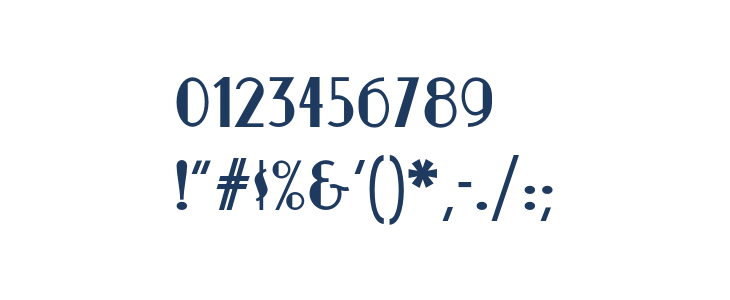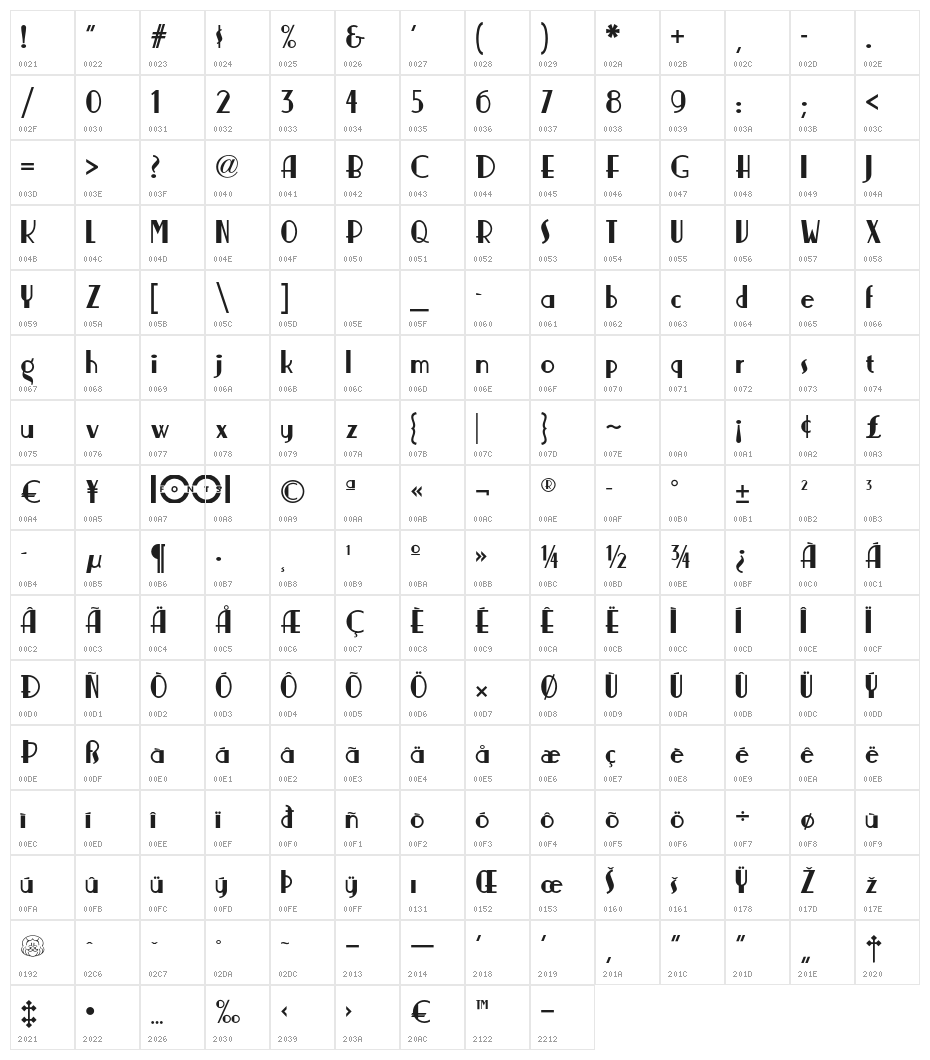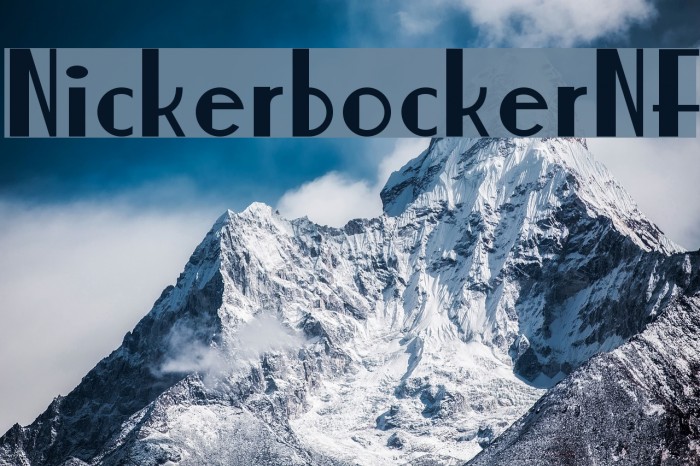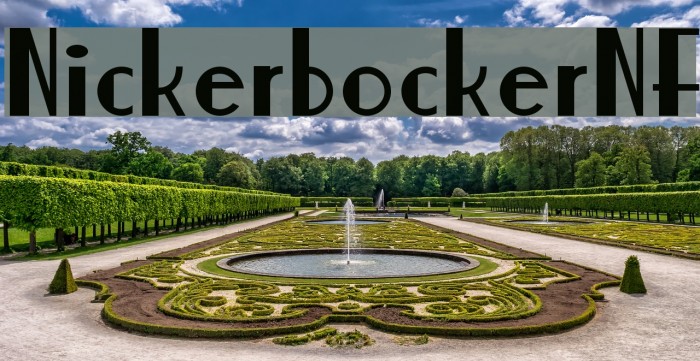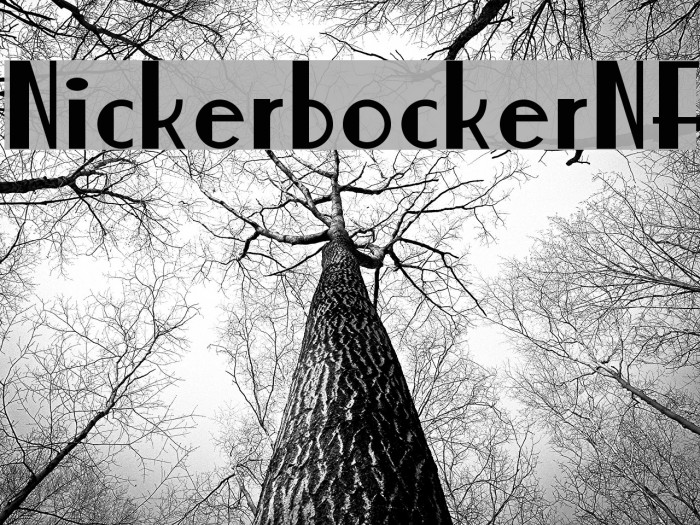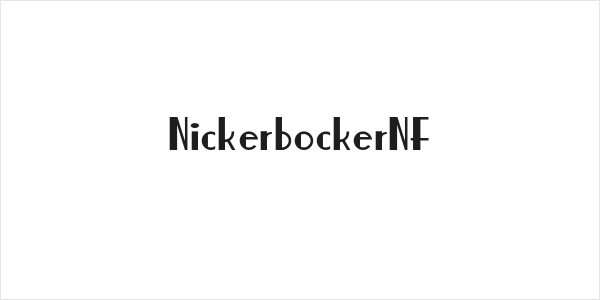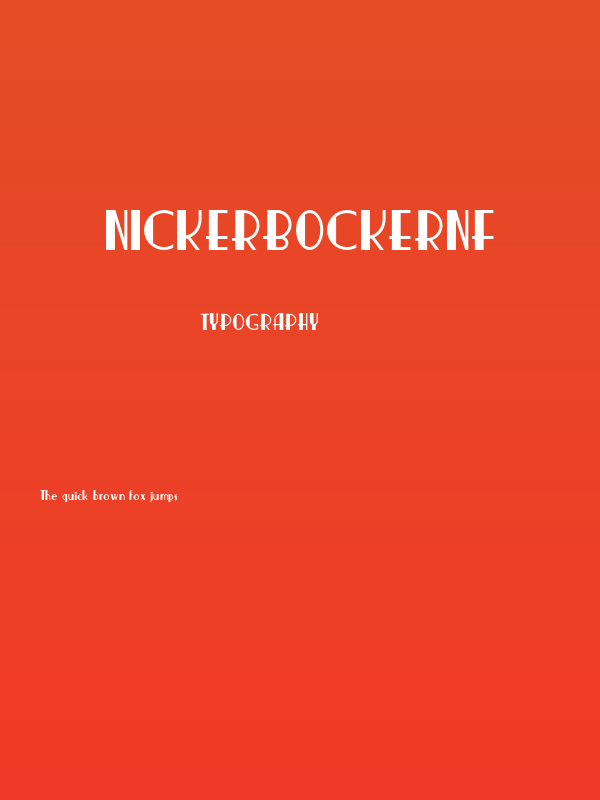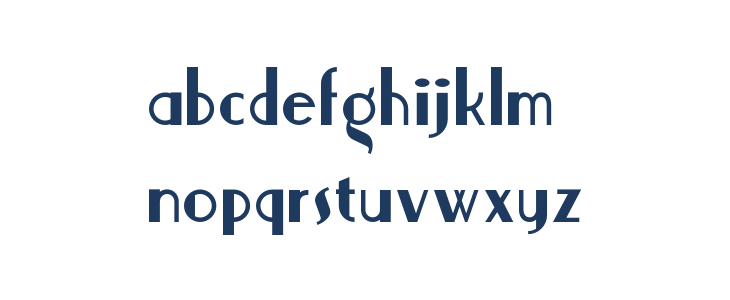
NickerbockerNF Font
NickerbockerNF Description
This font features a unique blend of Art Deco and modern design elements, characterized by its bold and geometric letterforms. The uppercase letters exhibit a strong vertical emphasis with distinct angular cuts and curves, creating a dynamic and stylish appearance. The lowercase letters maintain a consistent style, offering a harmonious balance between sharp edges and smooth curves. Numerals are crafted with a similar aesthetic, ensuring readability while maintaining the font's distinctive flair. Special characters are thoughtfully designed to complement the overall style, making this font versatile for various design needs.
| Overall Style | Modern, Art Deco |
| Proposed Projects | Ideal for branding, posters, headlines, and any project requiring a striking and stylish typeface. |